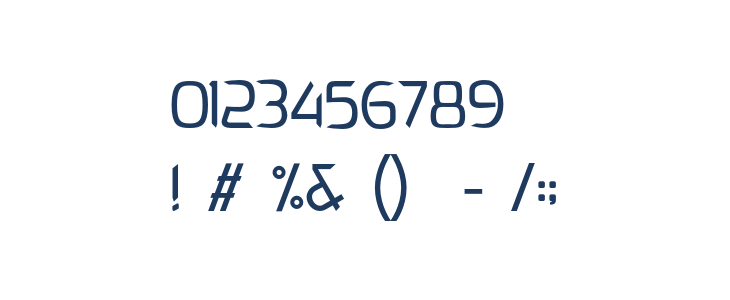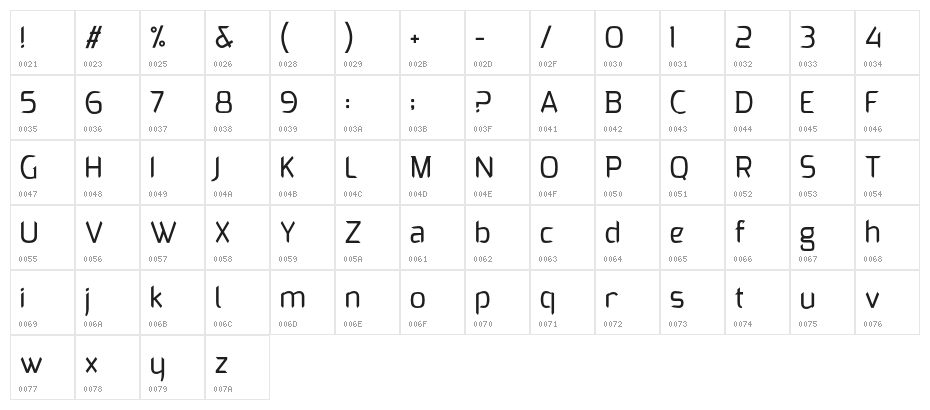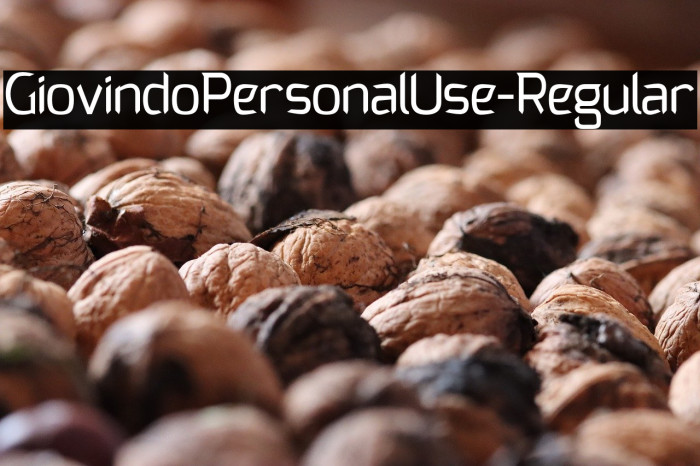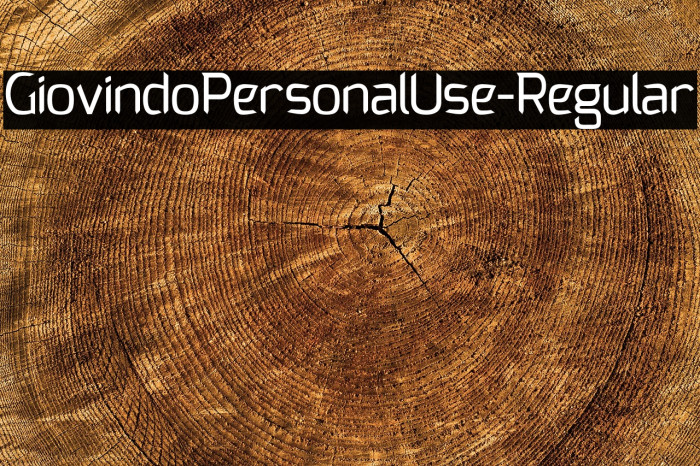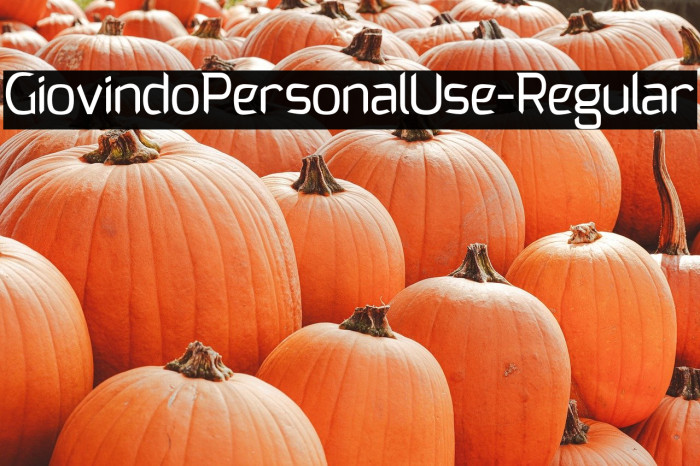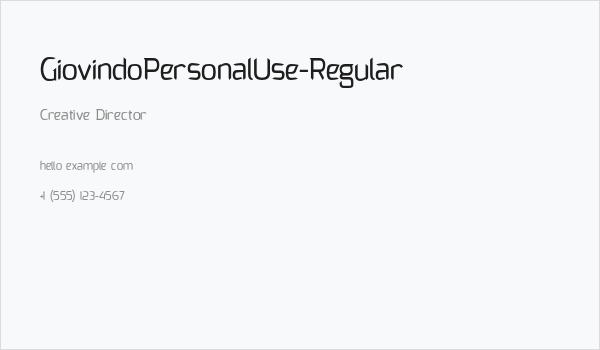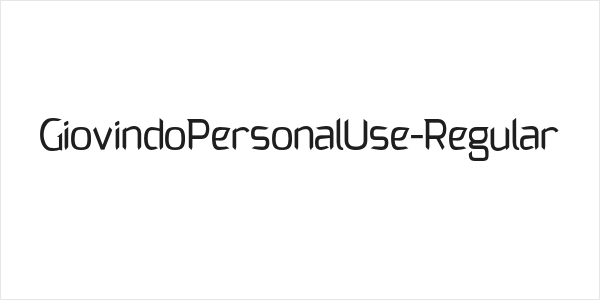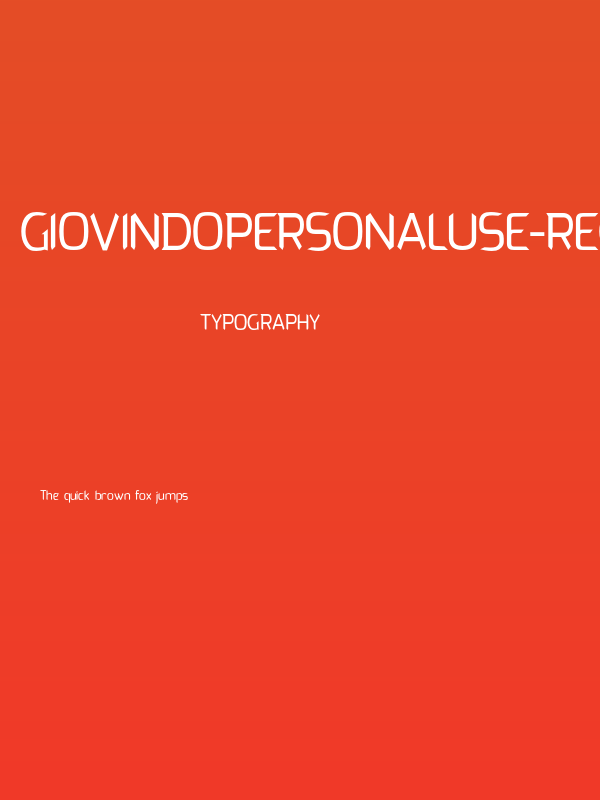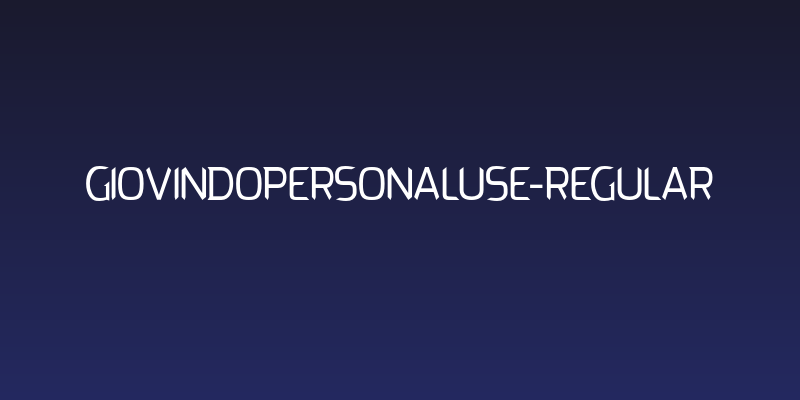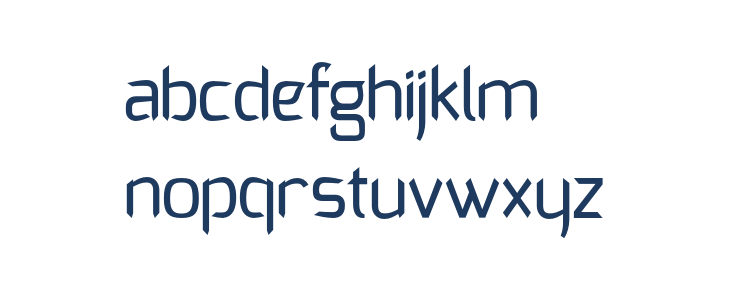
GiovindoPersonalUse-Regular Font
GiovindoPersonalUse-Regular Description
This font features a modern, geometric design with sharp angles and clean lines, giving it a futuristic and sleek appearance. The uppercase letters are bold and assertive, while the lowercase letters maintain a consistent style with slightly softer curves. The numerals are distinct and easy to read, complementing the overall aesthetic. Special characters are designed to match the angular style, ensuring a cohesive look across all text elements. This font is ideal for projects that require a contemporary and edgy feel.
| Use Case | Headlines, Logos, Digital interfaces |
| Proposed Projects | Ideal for tech branding, modern posters, digital interfaces, and futuristic designs. |